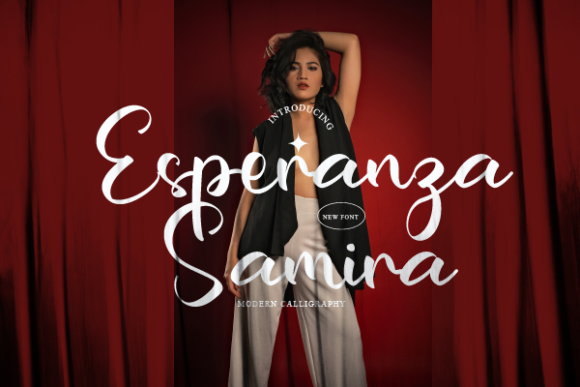
Immerse yourself in the enchantment of Esperanza Samira, a script font that exudes elegance and charm. A creation of Synthetic Type, it embodies delicacy and fashion, ready to elevate your branding projects to new heights.
Embark on a romantic journey with Esperanza Samira, the perfect font for expressing heartfelt emotions. Its captivating curves and graceful strokes evoke a sense of tenderness and affection, making it ideal for love letters, wedding invitations, and anniversary cards. Let your words dance across the page, carried by the flowing lines of Esperanza Samira, leaving a trail of elegance and allure.
Unleash your creativity with Esperanza Samira, the font that knows no bounds. Its versatility shines through in logos, t-shirt designs, and creative products, adding a touch of sophistication and uniqueness to your creations. Whether you're a seasoned designer or just starting your creative journey, Esperanza Samira will effortlessly elevate your projects and make them stand out from the crowd.
Experience the extraordinary with Esperanza Samira, a font that complements a myriad of contexts. Its delicate strokes and captivating charm harmonize perfectly with branding projects, personal projects, and even social media posts. Allow Esperanza Samira to transform your words into captivating expressions that resonate with your audience and leave a lasting impression.